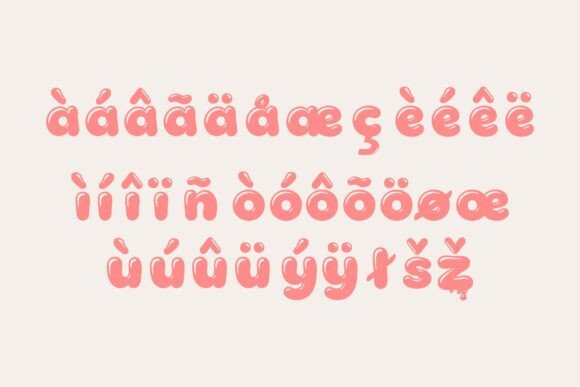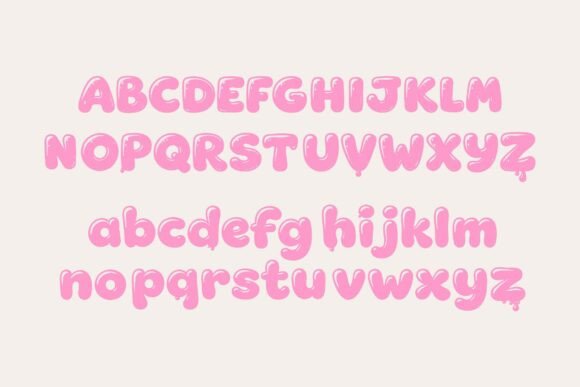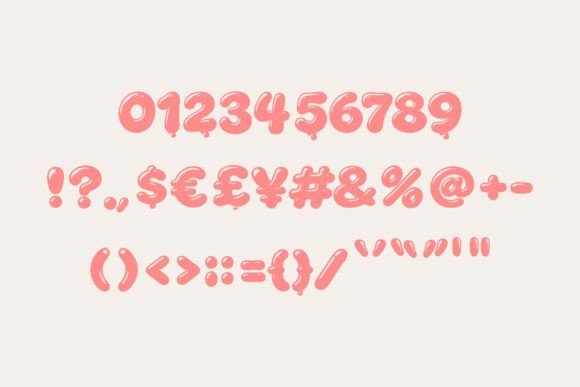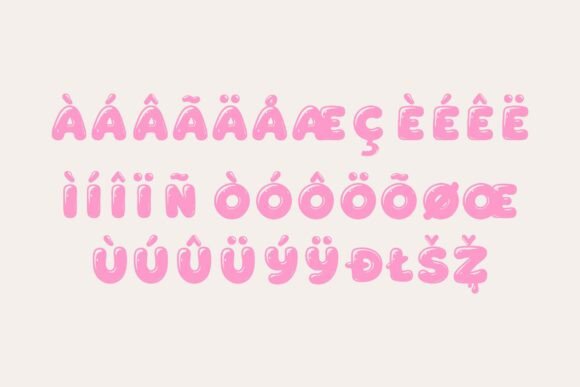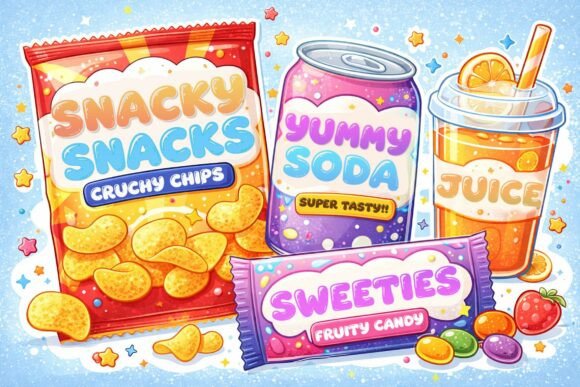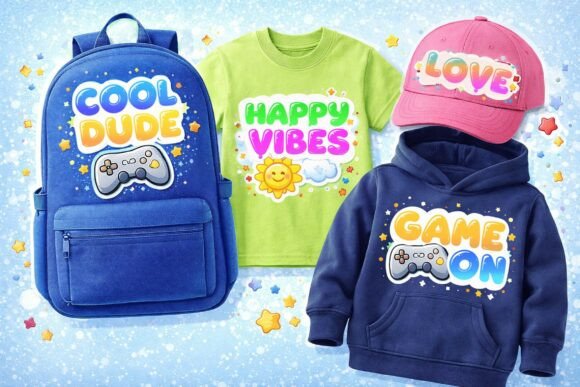
Gummy Pop Font: The Sweetest Addition to Your Design Projects
Are you looking for a font that can add a touch of fun and playfulness to your design projects? Look no further than the Gummy Pop Font! Inspired by soft jelly shapes and bubbly forms, this bold and playful display font is perfect for modern creative designs that need a sweet and energetic personality.
The Inspiration Behind Gummy Pop Font
Gummy Pop Font is a typeface that is inspired by the soft, rounded edges and smooth, puffy structure of jelly shapes. The font’s creator aimed to capture the fun and friendly essence of these shapes and bring them to life in a font that is both eye-catching and engaging. The result is a font that is perfect for designs that need a playful and cheerful touch.
Key Features of Gummy Pop Font
So, what makes Gummy Pop Font so special? Here are some of its key features:
- Bold and Playful: Gummy Pop Font is a bold and playful display font that is perfect for headlines, titles, and other design elements that need to make a statement.
- Rounded Edges: The font’s rounded edges give it a soft and friendly feel that is perfect for designs that need a touch of warmth and approachability.
- Smooth and Puffy Structure: The font’s smooth and puffy structure gives it a fun and energetic feel that is perfect for designs that need to convey a sense of excitement and playfulness.
Use Cases for Gummy Pop Font
Gummy Pop Font is a versatile font that can be used in a variety of design projects, including:
- Food Branding: The font’s playful and cheerful personality makes it perfect for food branding projects that need to convey a sense of fun and freshness.
- Kids Products: The font’s bold and playful personality makes it perfect for kids’ products, such as toys, games, and children’s books.
- Packaging: The font’s eye-catching and engaging personality makes it perfect for packaging designs that need to stand out on store shelves.
- Social Media: The font’s fun and energetic personality makes it perfect for social media designs that need to grab attention and convey a sense of excitement.
- Cheerful Visual Projects: The font’s playful and cheerful personality makes it perfect for visual projects that need to convey a sense of happiness and joy.
Why Designers and Crafters Love Gummy Pop Font
So, why do designers and crafters love Gummy Pop Font? Here are just a few reasons:
- Easy to Read: Despite its playful and bold personality, Gummy Pop Font is easy to read and understand, making it perfect for designs that need to communicate a message quickly and effectively.
- Highly Versatile: The font’s versatility makes it perfect for a wide range of design projects, from food branding to kids’ products and packaging.
- Unique and Eye-Catching: The font’s unique and eye-catching personality makes it perfect for designs that need to stand out and grab attention.
How to Use Gummy Pop Font in Your Design Projects
- Use it as a Headline Font: Gummy Pop Font is perfect for headlines and titles, where its bold and playful personality can really shine.
- Pair it with Other Fonts: The font pairs well with other fonts, making it perfect for designs that need a mix of fonts to convey a message.
- Experiment with Colors: The font’s playful and cheerful personality makes it perfect for designs that need to convey a sense of fun and excitement, so don’t be afraid to experiment with different colors and color combinations.
In conclusion, Gummy Pop Font is a bold, playful display font that is perfect for modern creative designs that need a sweet and energetic personality. With its rounded edges, smooth and puffy structure, and highly versatile design, this font is sure to add a touch of fun and playfulness to any design project. So why not give it a try and see how it can elevate your designs to the next level?